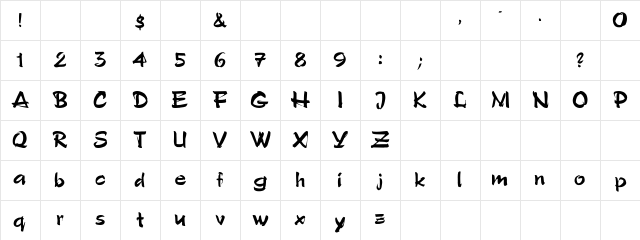
Polo SemiScript Free Font
Polo SemiScript
Style: SemiScript
Design Context for Polo
Polo flows with the natural rhythm of handwritten lettering, making it ideal for designs that call for warmth and personal expression.
Font Pairing: Combine Polo with a simple geometric sans for maximum contrast - the tension between flowing curves and clean structure is a classic typographic pairing.
Pro Tip: Use Polo for short runs of text - names, titles, or taglines. Extended body copy in script faces tires the eye quickly.